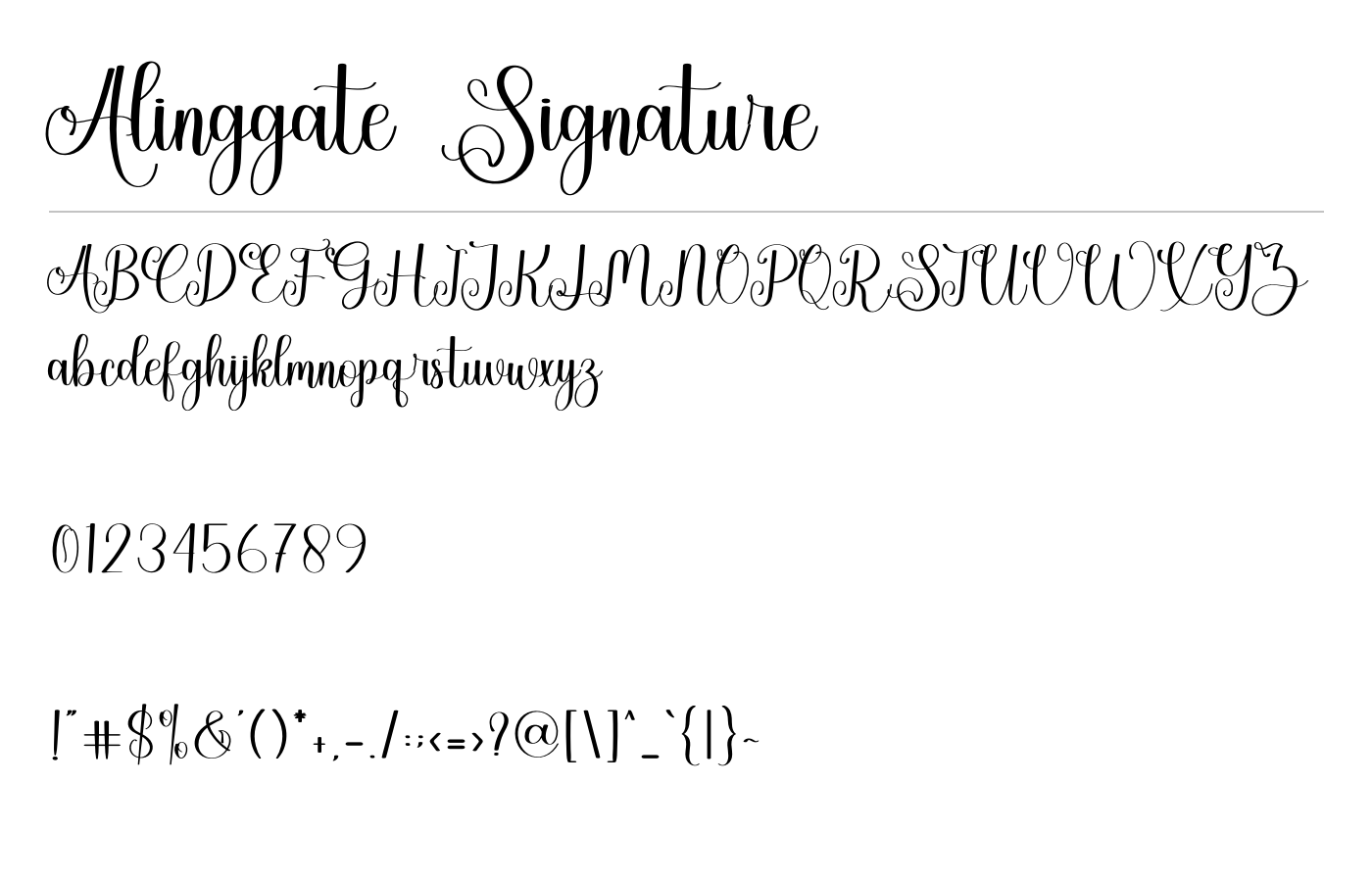
Alinggate Signature Font is an elegant, handwritten script with delicate, flowing strokes and expressive swashes that give it a personal, sophisticated feel. Its tall, narrow letterforms and refined contrast make it ideal for luxury branding, wedding invitations, and stylish logos where a graceful, artistic touch is desired. This font beautifully combines readability with charm, perfect for creating a memorable and elegant visual impact.
Alinggate Signature Font
About Alinggate Signature Font
| Font family | Alinggate Signature Font |